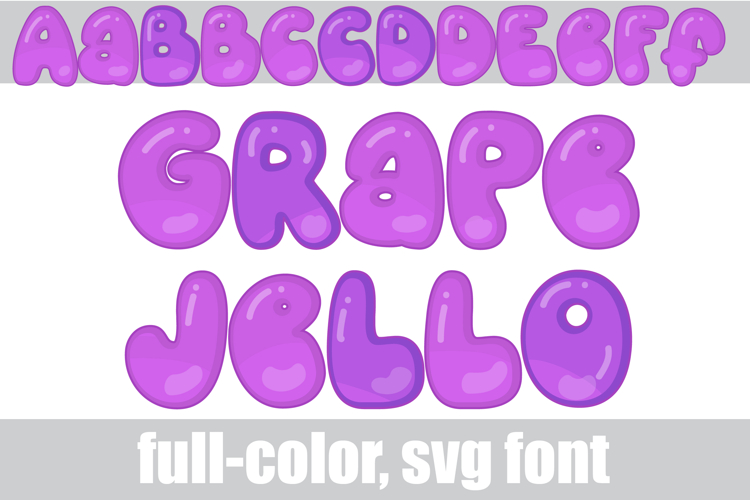
Grape Jello Color Font
This hand-crafted font is a full-color font featuring grape jello. There is an alt case of each letter with a different color combination.